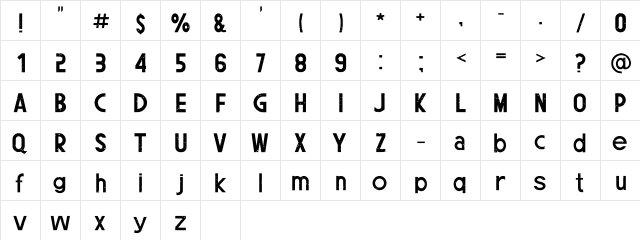
Future 2097 Eroded Regular
Design Context for Future 2097 Eroded Typeface
Future 2097 Eroded has a distinctly futuristic character, with geometric precision and clean angles that feel at home in technology, gaming, and sci-fi contexts.
Pro Tip: Use Future 2097 Eroded in combination with a neutral sans for body text. Let it define the brand voice in headlines while keeping reading comfortable elsewhere.